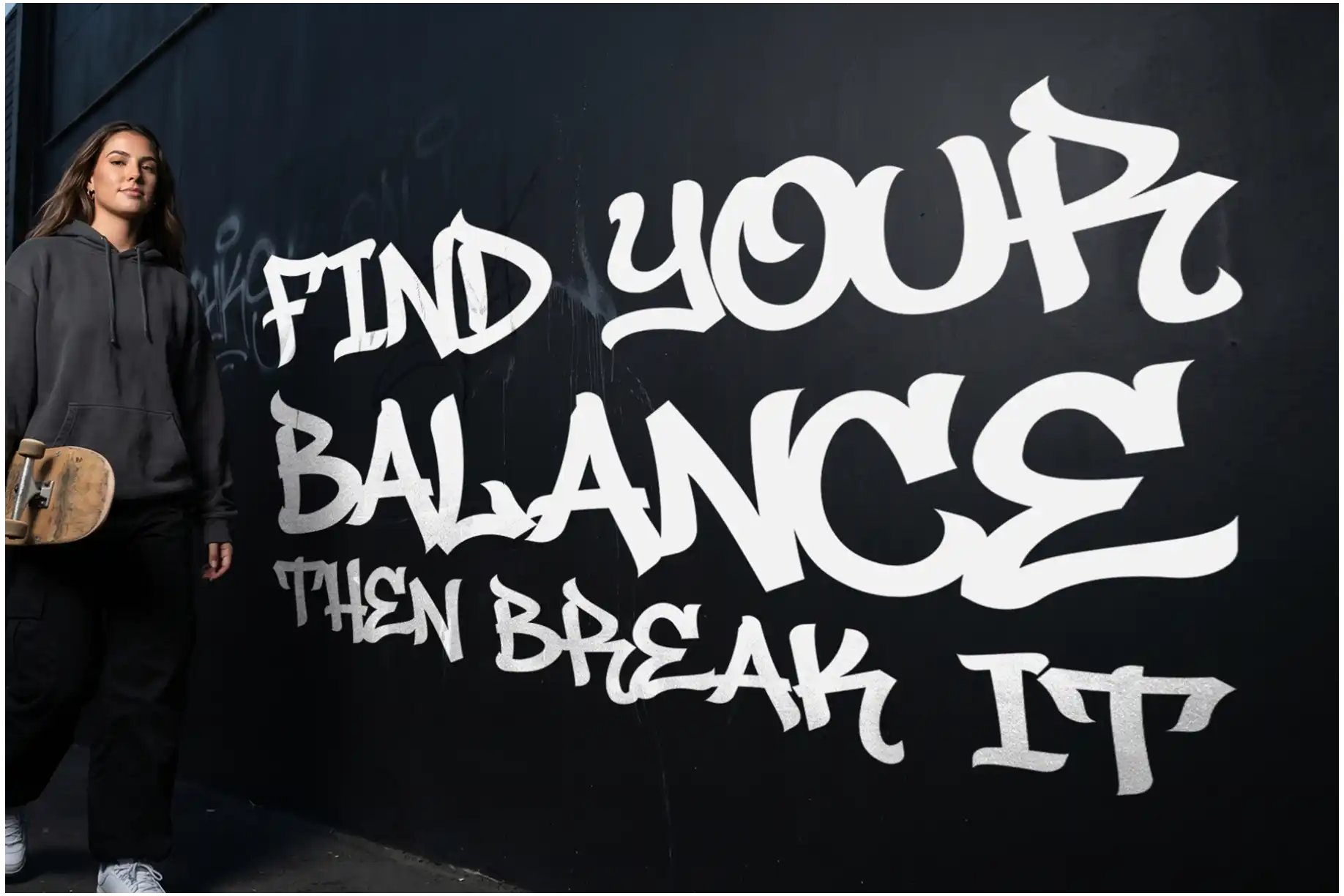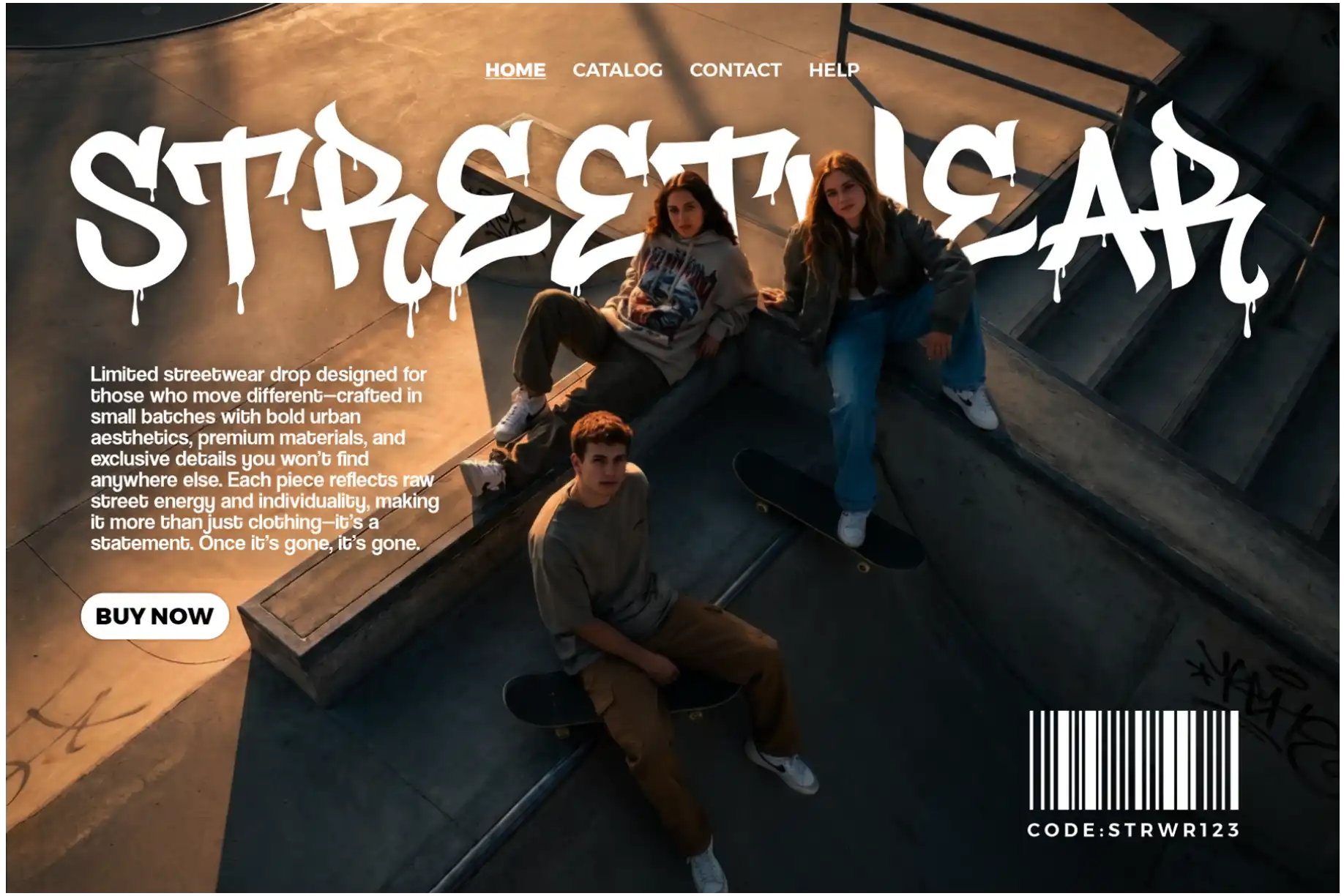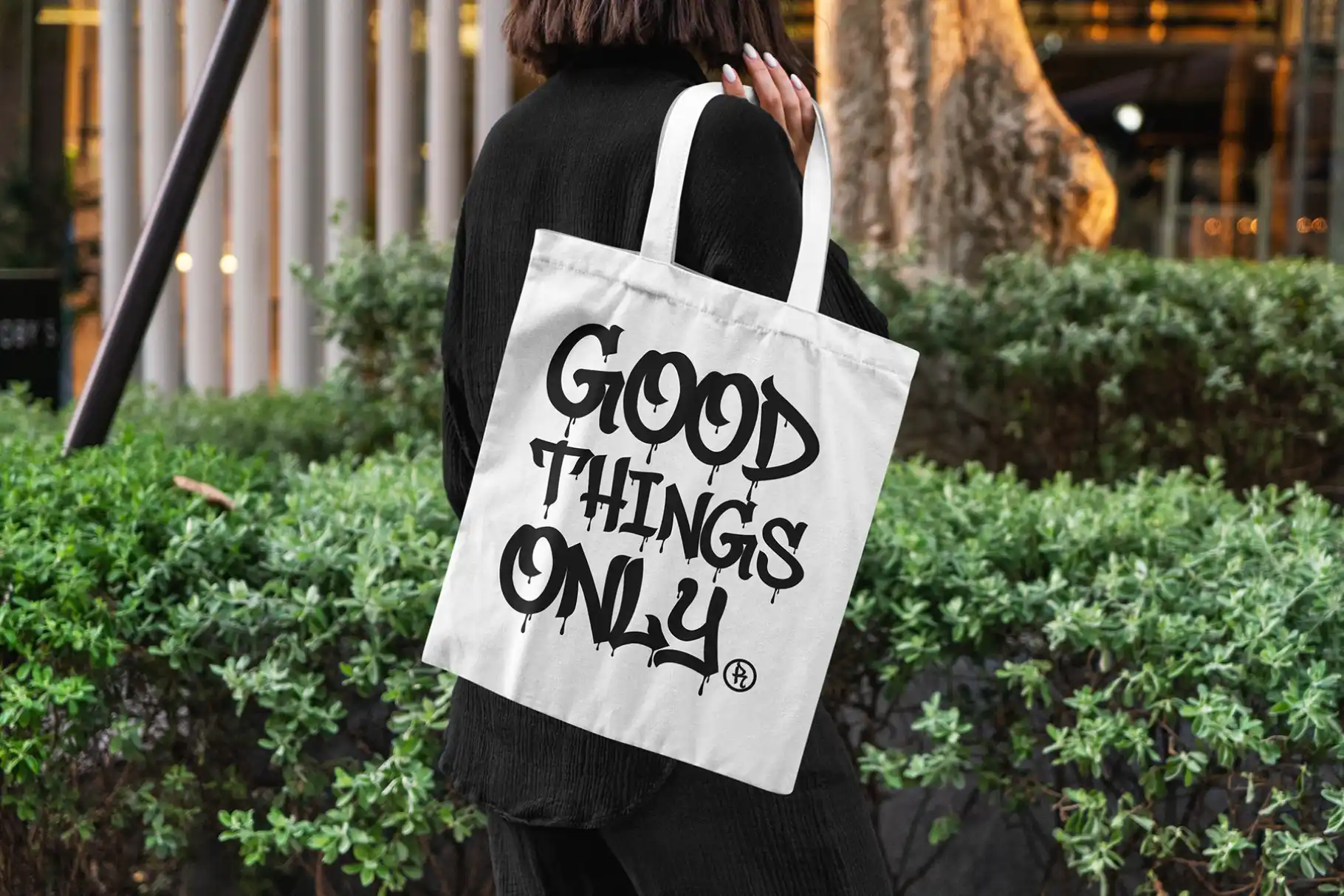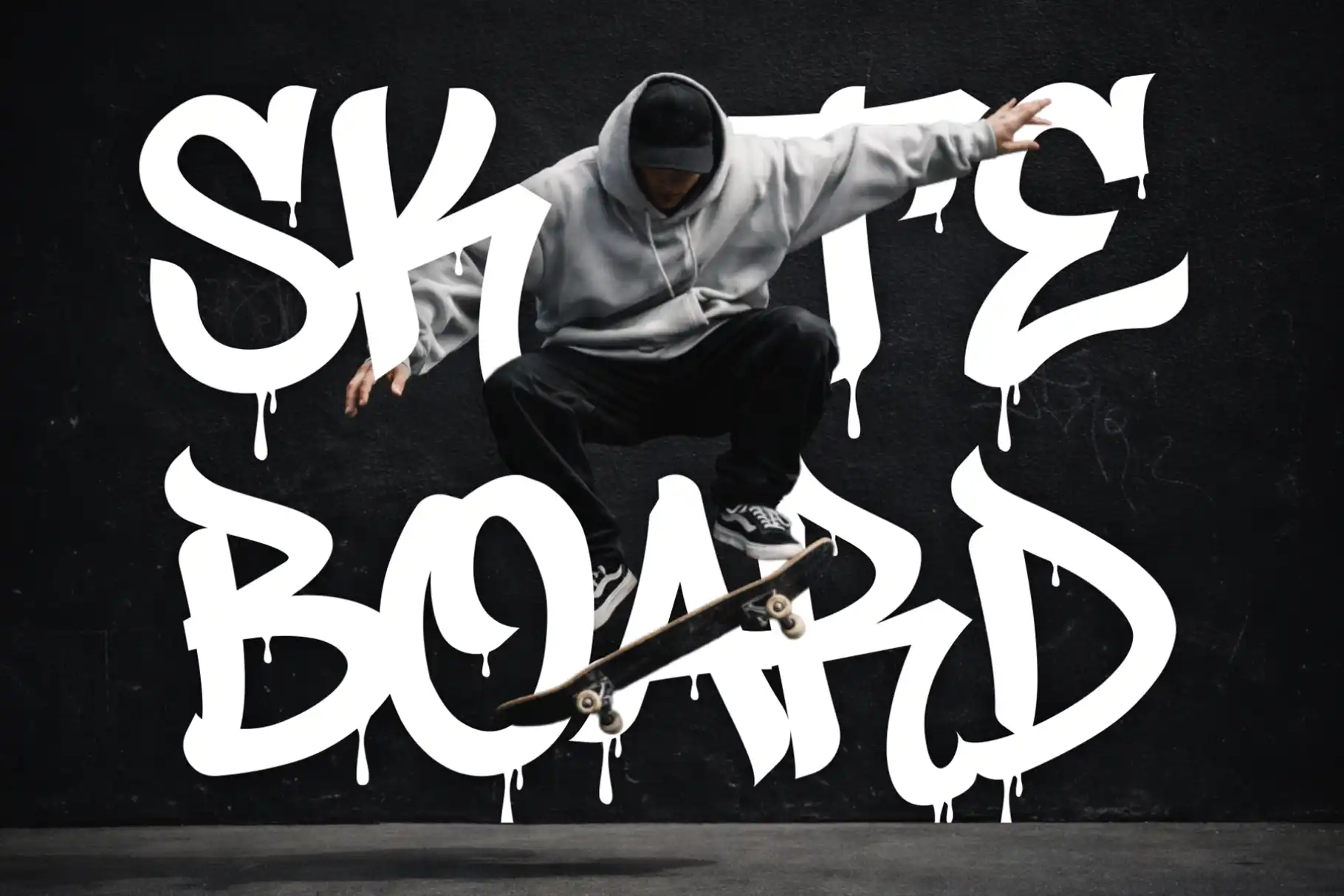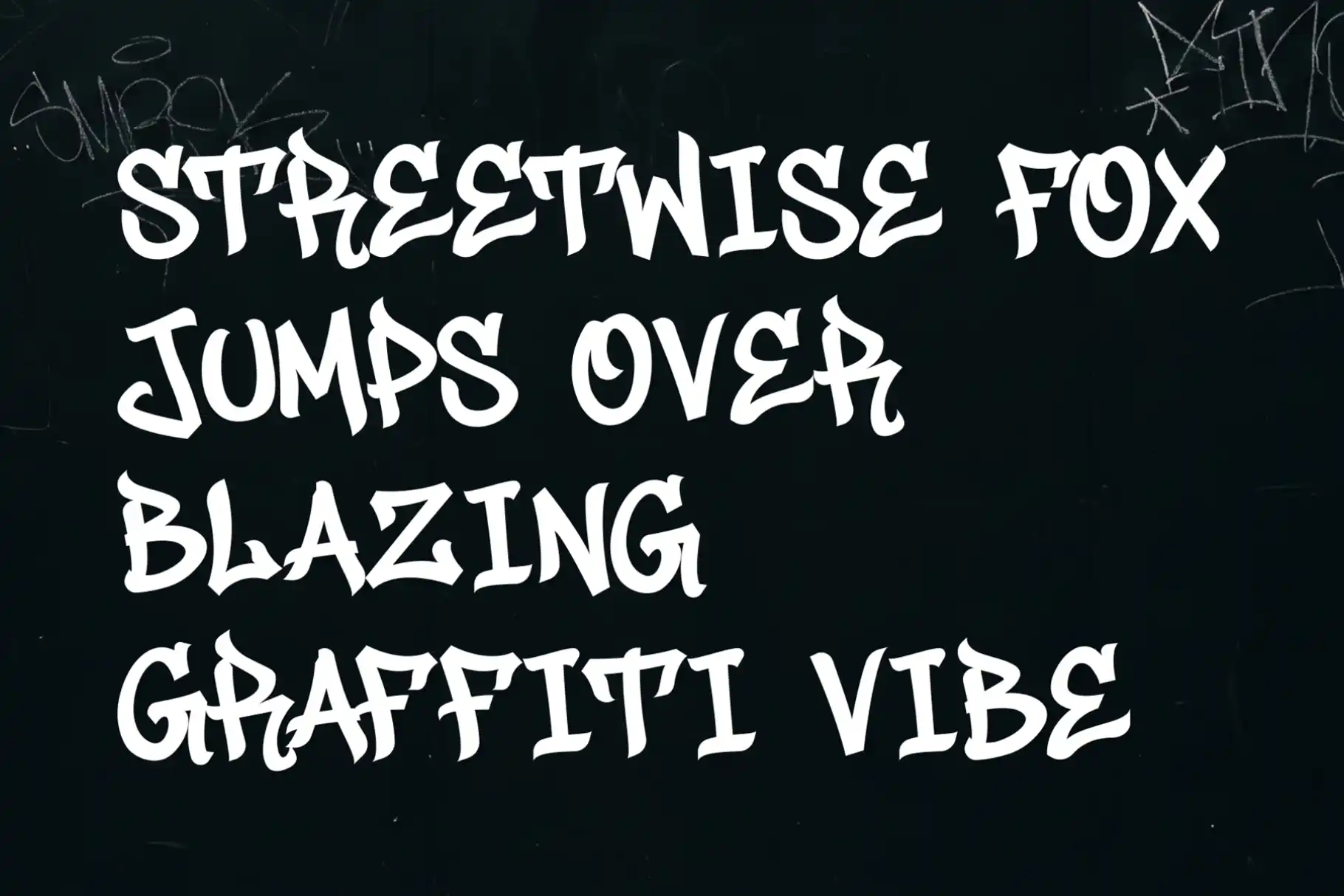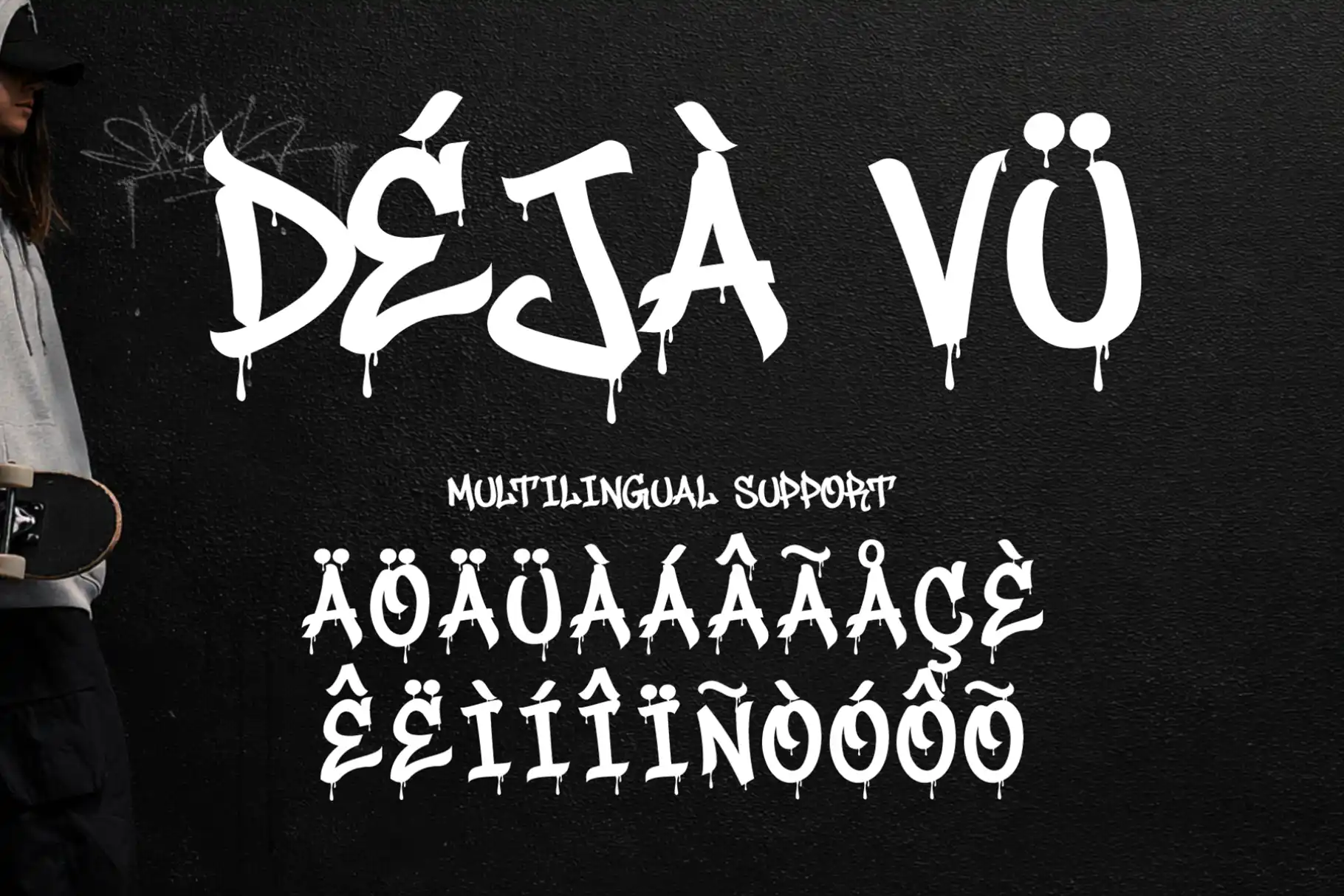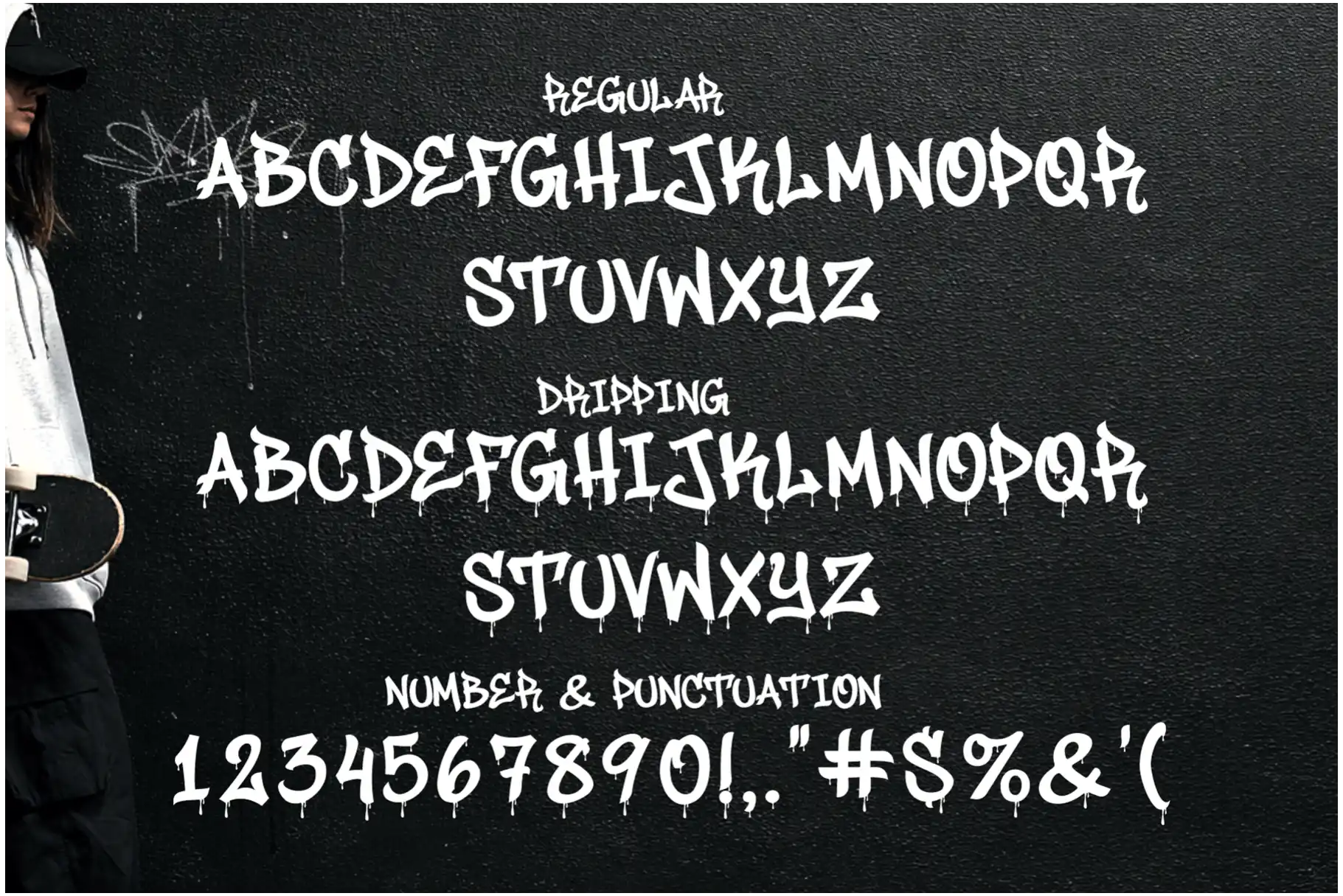
Junky Style – Handwritten Graffiti Font for Urban Street Design
Typography is the voice of visual expression, and nothing speaks louder than a handwritten graffiti font. Junky Style – Handwritten Graffiti Font is built for designers who want raw energy, street culture, and expressive creativity in their work. This handwritten graffiti font captures the authentic feel of urban tagging, combining bold strokes with natural flow and edgy drip effects.
Whether you are creating posters, branding, album covers, or social media visuals, Junky Style brings a rebellious and artistic personality that instantly stands out.
Handwritten Graffiti Font with Authentic Street Energy
Junky Style is not just another display typeface. It is a handwritten graffiti font inspired by real street art, where every stroke feels alive and spontaneous. The organic shapes and expressive forms reflect the energy of graffiti culture, making it perfect for projects that need bold identity and urban character.
This handwritten graffiti font allows designers to break away from rigid typography and embrace a more expressive, free-flowing visual style.
Key Features of Junky Style – Handwritten Graffiti Font
Here are the powerful features that make Junky Style a must-have handwritten graffiti font for designers:
- Multilingual Support: Extended Latin characters for global use
- Authentic Graffiti Style: Inspired by real urban street lettering
- Drip Version Included: Adds edgy paint-drip effect for stronger visual impact
- Versatile Usage: Suitable for posters, logos, album covers, and digital content
Why Designers Love This Handwritten Graffiti Font
Designers are always looking for fonts that stand out, and Junky Style delivers exactly that. This handwritten graffiti font combines artistic freedom with practical usability.
Here’s why designers love it:
- Strong Visual Identity: Instantly creates bold and rebellious designs
- Two Styles in One Pack: Regular and drip version for more creative flexibility
- Urban Authenticity: Feels real, not artificial like generic graffiti fonts
- Perfect Pairing Potential: Works great with other graffiti styles for layered compositions
Handwritten Graffiti Font for Logos and Branding
Branding requires personality, and Junky Style brings a strong one. This handwritten graffiti font is ideal for brands that want to communicate creativity, youth energy, and bold identity.
From street-inspired businesses to music labels and creative agencies, Junky Style transforms logos into powerful visual statements.
These combinations create layered, dynamic typography that feels alive and expressive.
Handwritten Graffiti Font for Posters and Creative Projects
Posters need to grab attention instantly, and Junky Style does exactly that. This handwritten graffiti font thrives in bold layouts where expression matters more than perfection.
Whether you’re designing music event posters, street campaigns, or edgy digital artwork, Junky Style ensures your message is loud, clear, and unforgettable.
Handwritten Graffiti Font in Digital Media
In the world of social media, standing out is everything. Junky Style gives your visuals a raw, energetic vibe that connects with modern audiences. This handwritten graffiti font is perfect for Instagram posts, YouTube thumbnails, and creative branding visuals.
Its drip version adds extra attitude, making your content even more engaging and eye-catching.
- Best Uses: Logos, Posters, Branding, Music Covers, Social Media